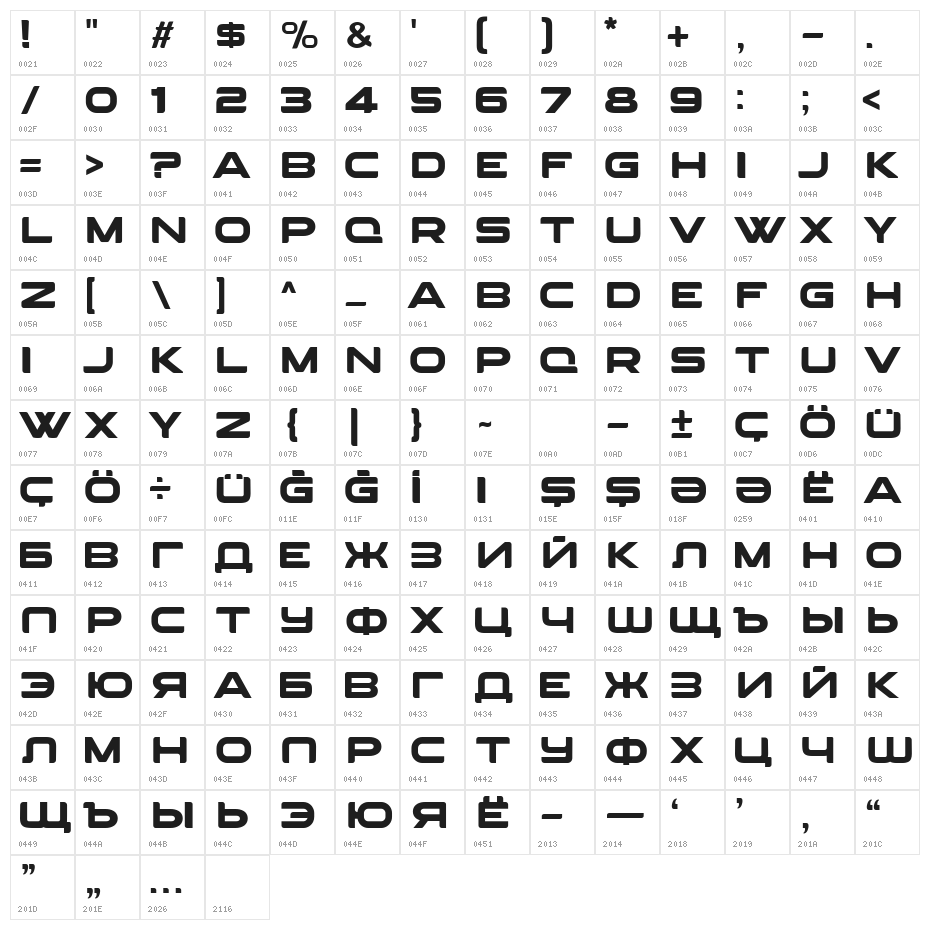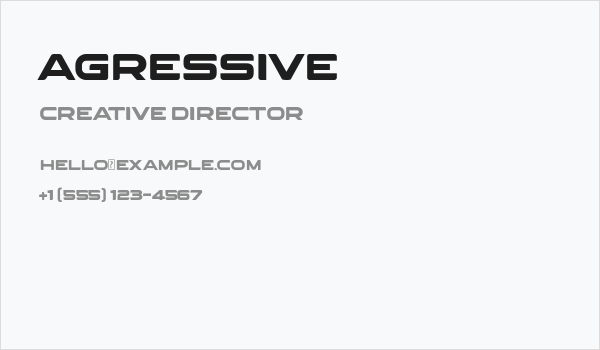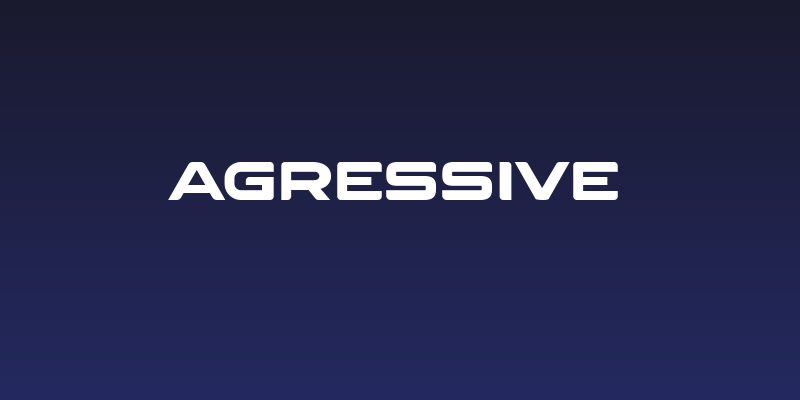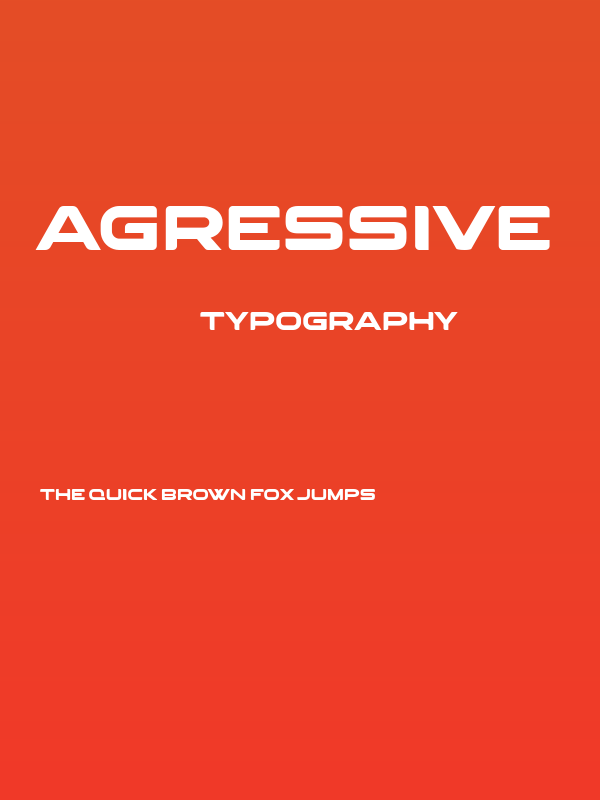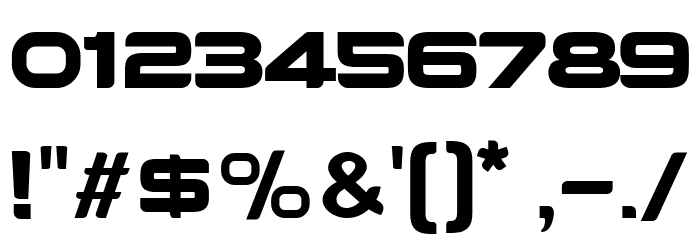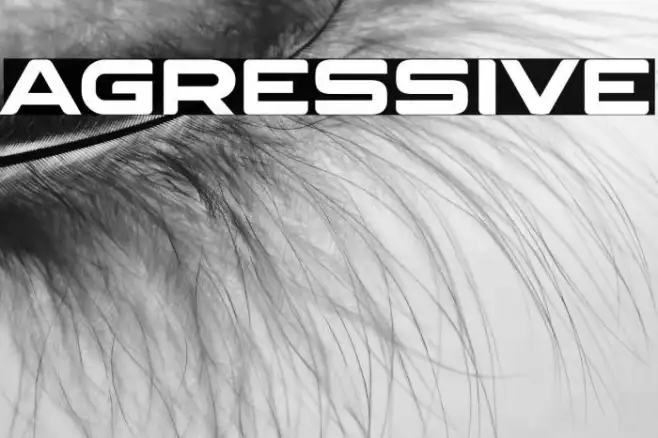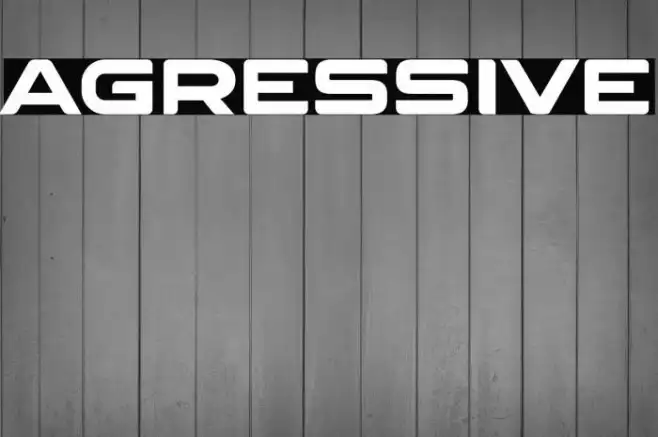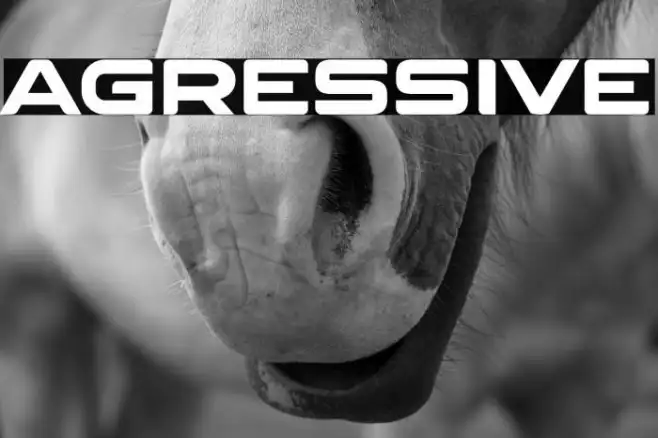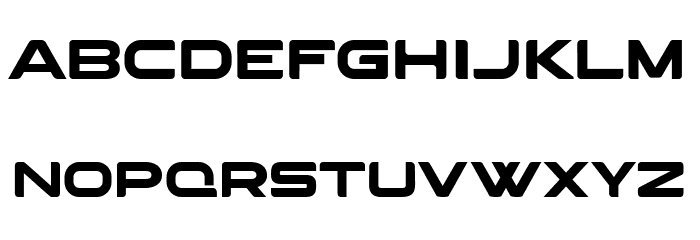
AGRESSIVE Font
AGRESSIVE Description
This font features a bold, modern design with a futuristic appeal. The characters are uniformly thick, with a geometric structure that emphasizes clean lines and sharp angles. The uppercase letters are particularly striking, with a strong presence that commands attention. The lowercase letters maintain the same boldness, ensuring consistency across different text cases. Numbers and special characters are designed to match the overall aesthetic, providing a cohesive look. The font's style is ideal for projects that require a modern and assertive appearance.
| Proposed Projects | Ideal for technology branding, futuristic posters, video game titles, and modern advertising campaigns. |